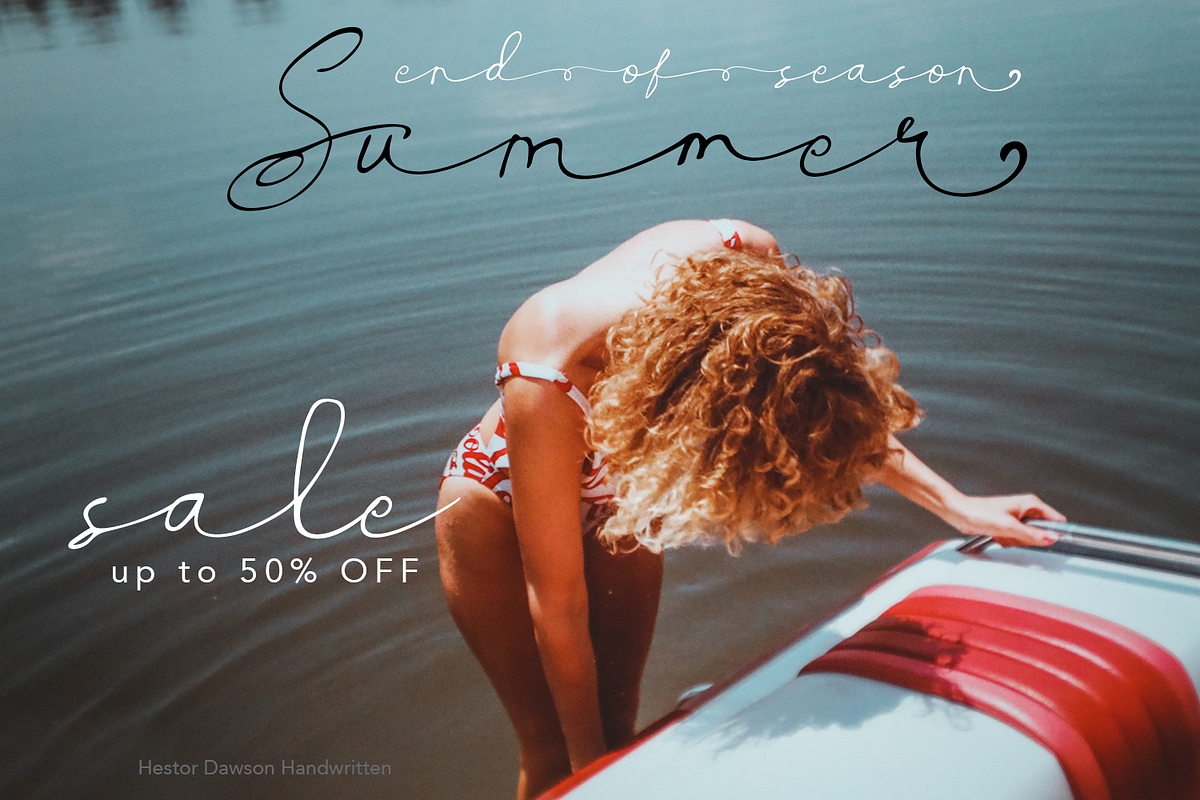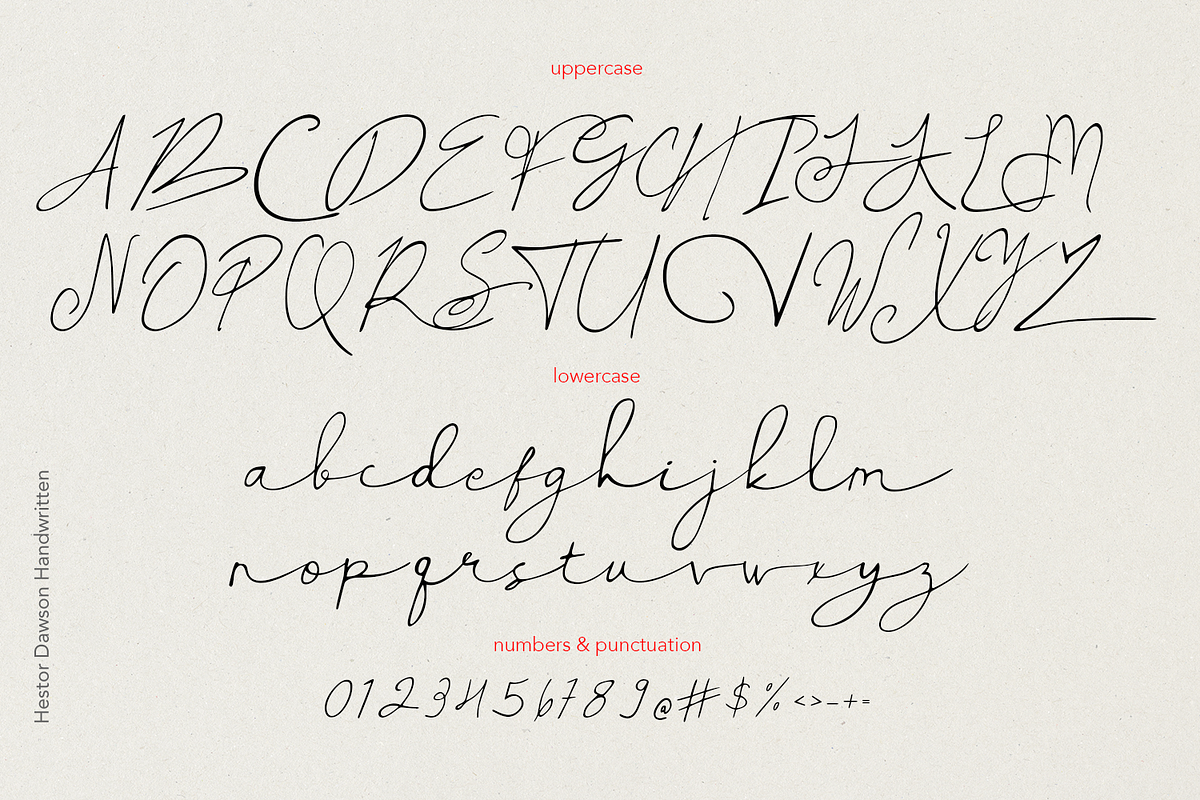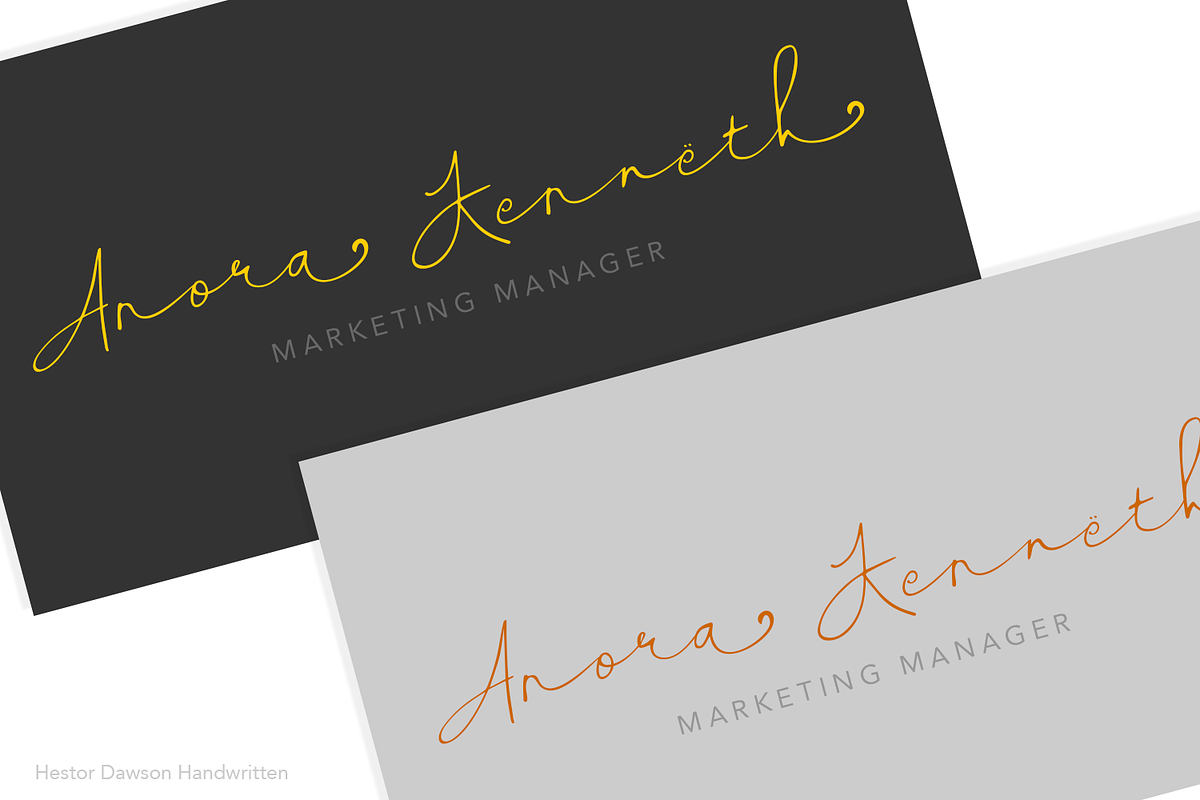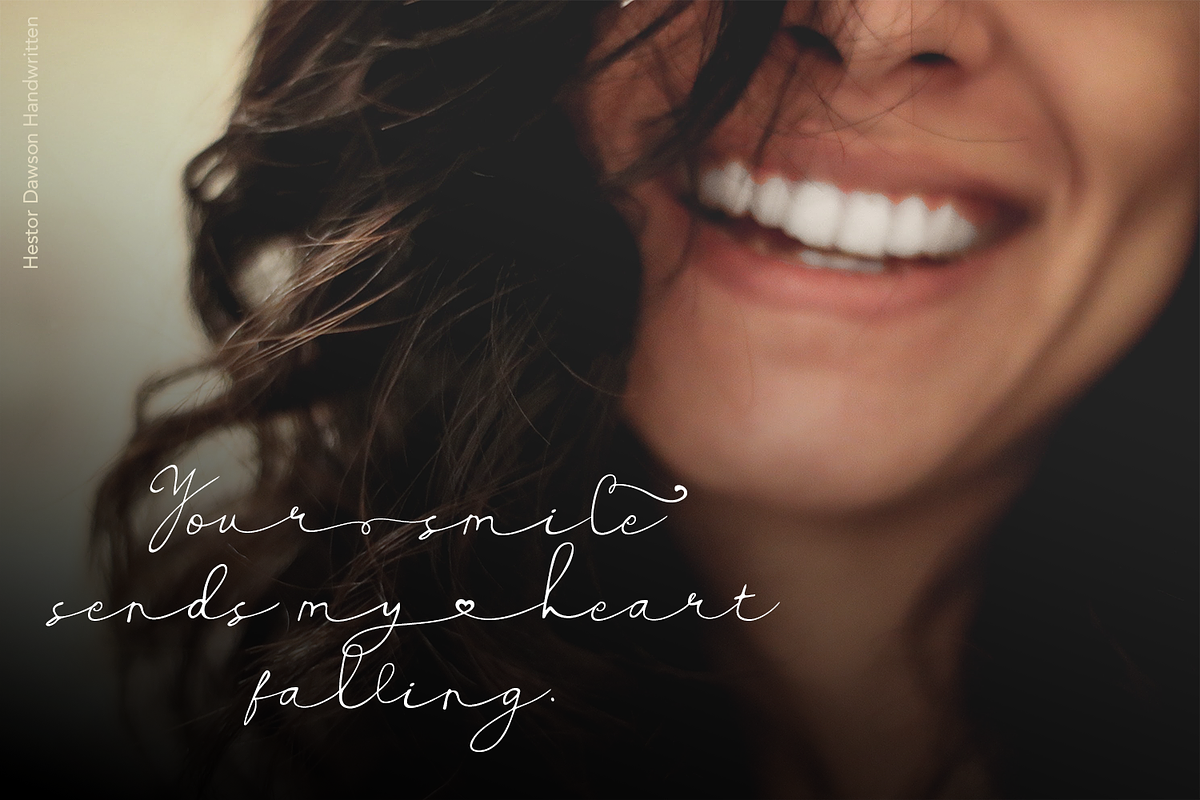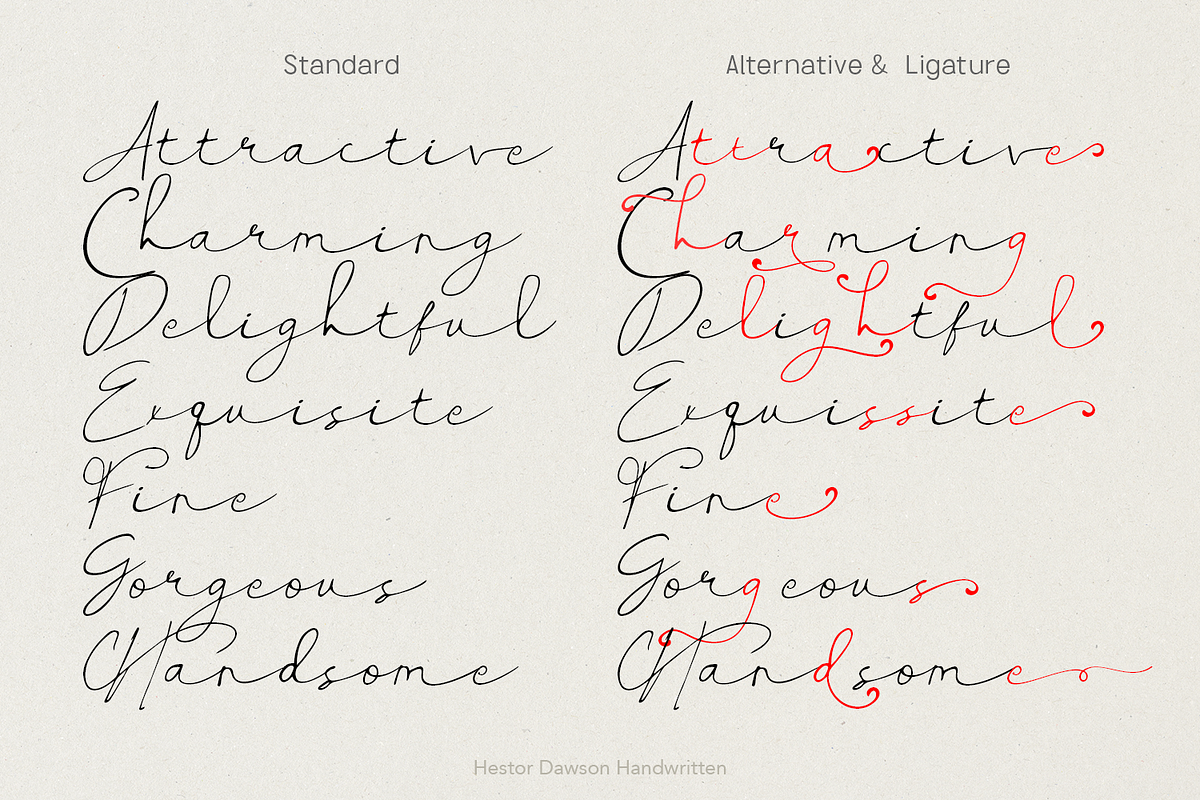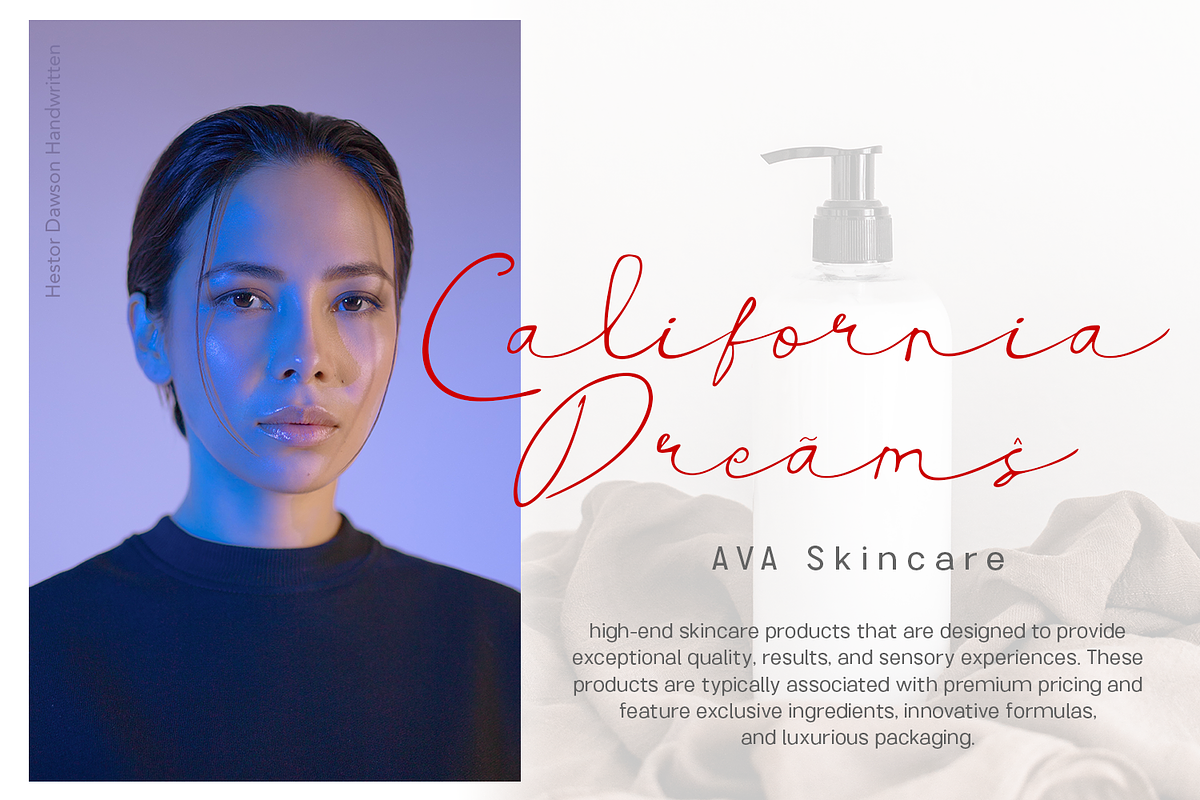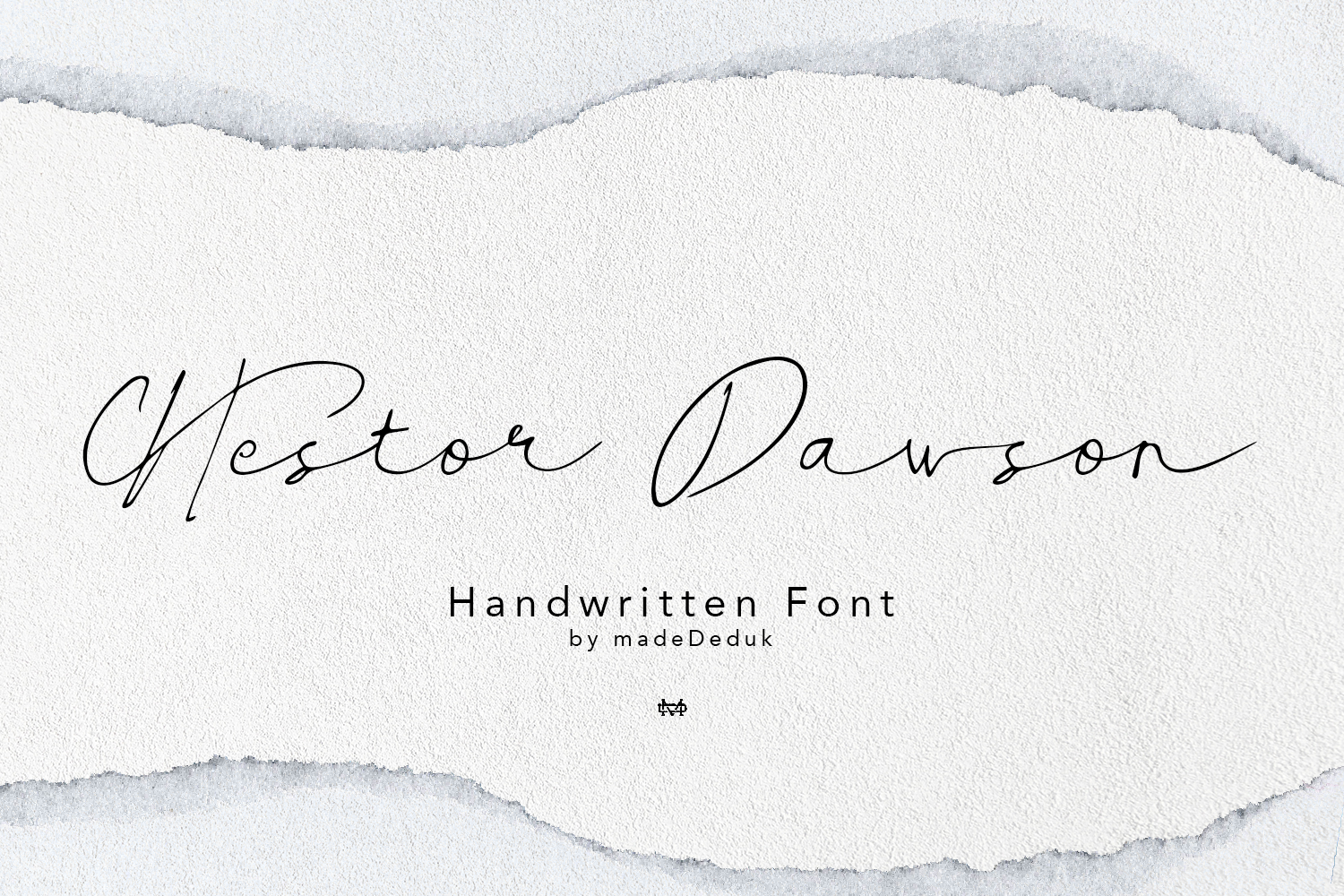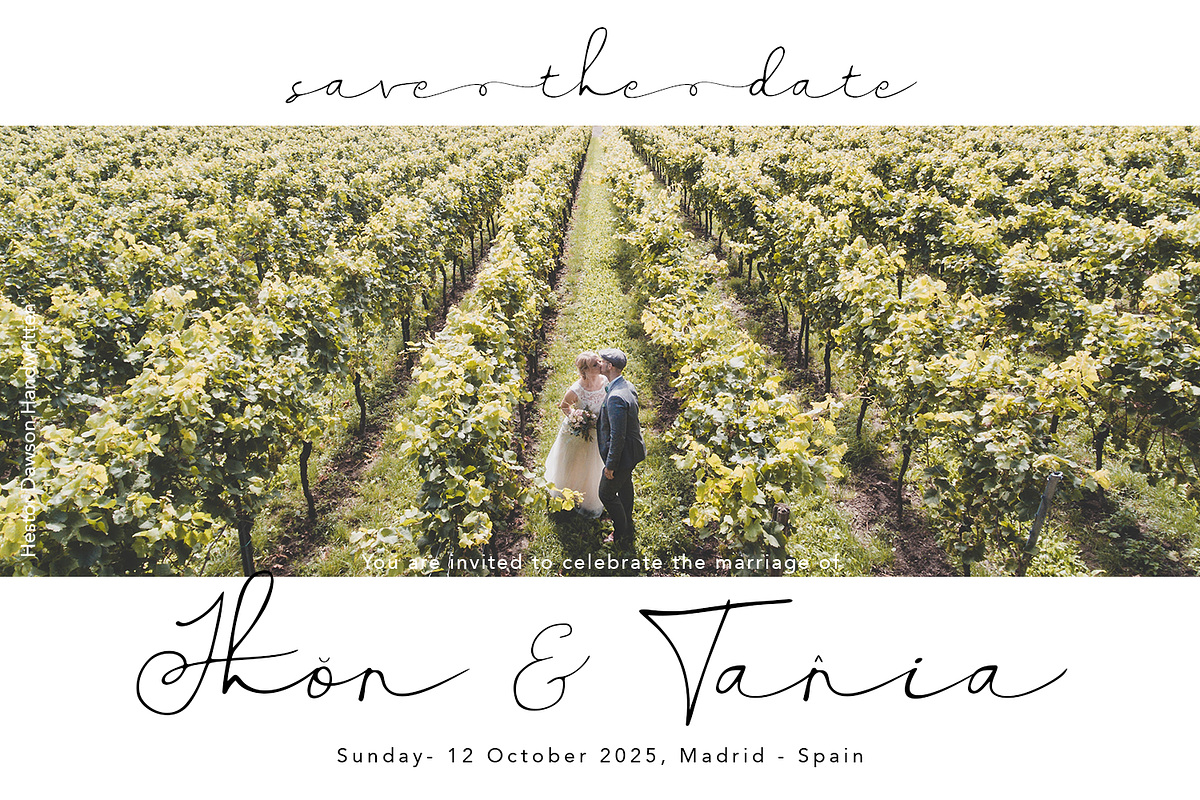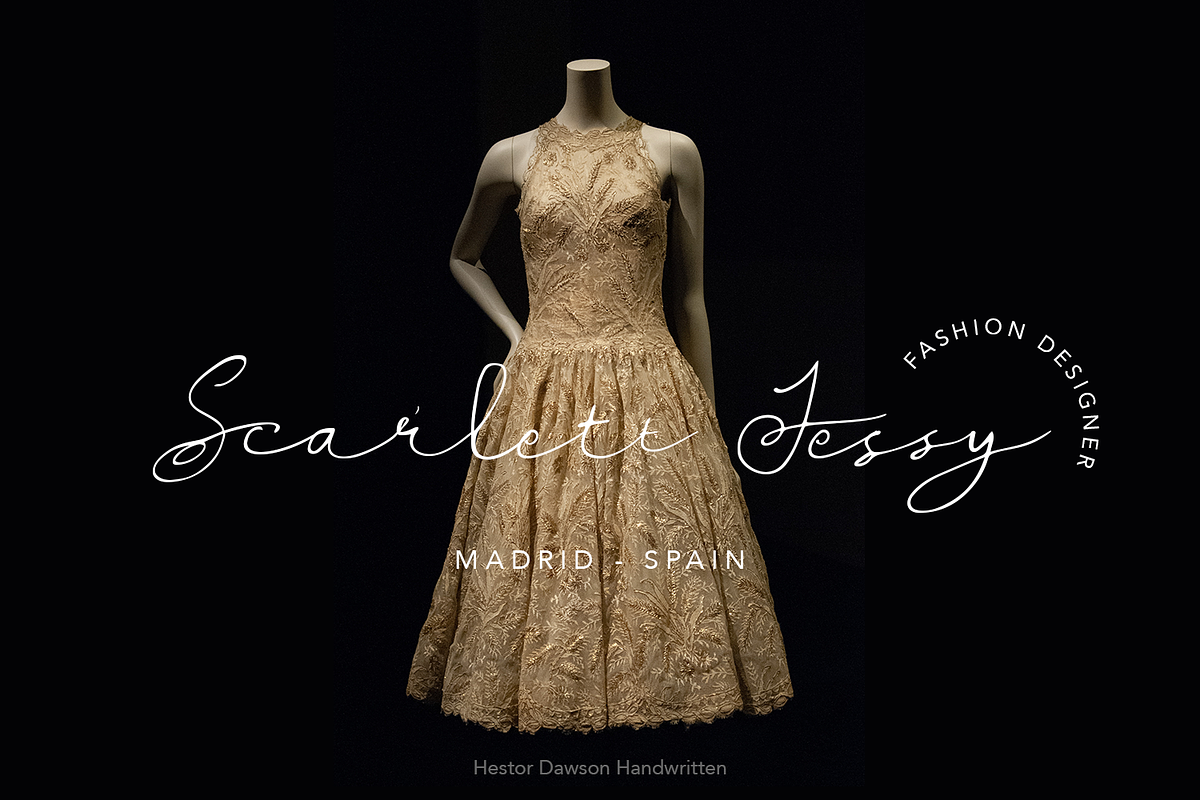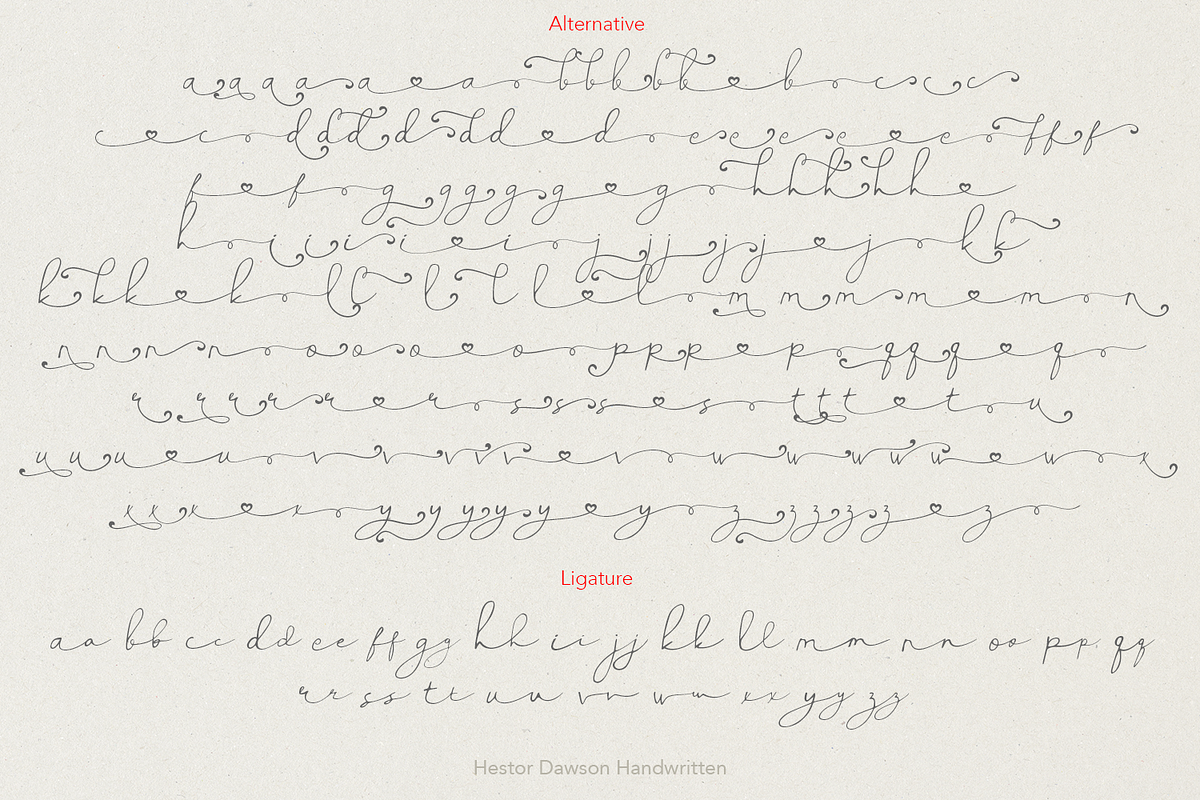
Hestor Dawson - Handwritten Font
Really excited to introduce Hestor Dawson is gorgeous handwritten font. Hestor Dawson handwritten includes alternative and ligatures to make everything look natural handmade handwritten.
- International Glyphs